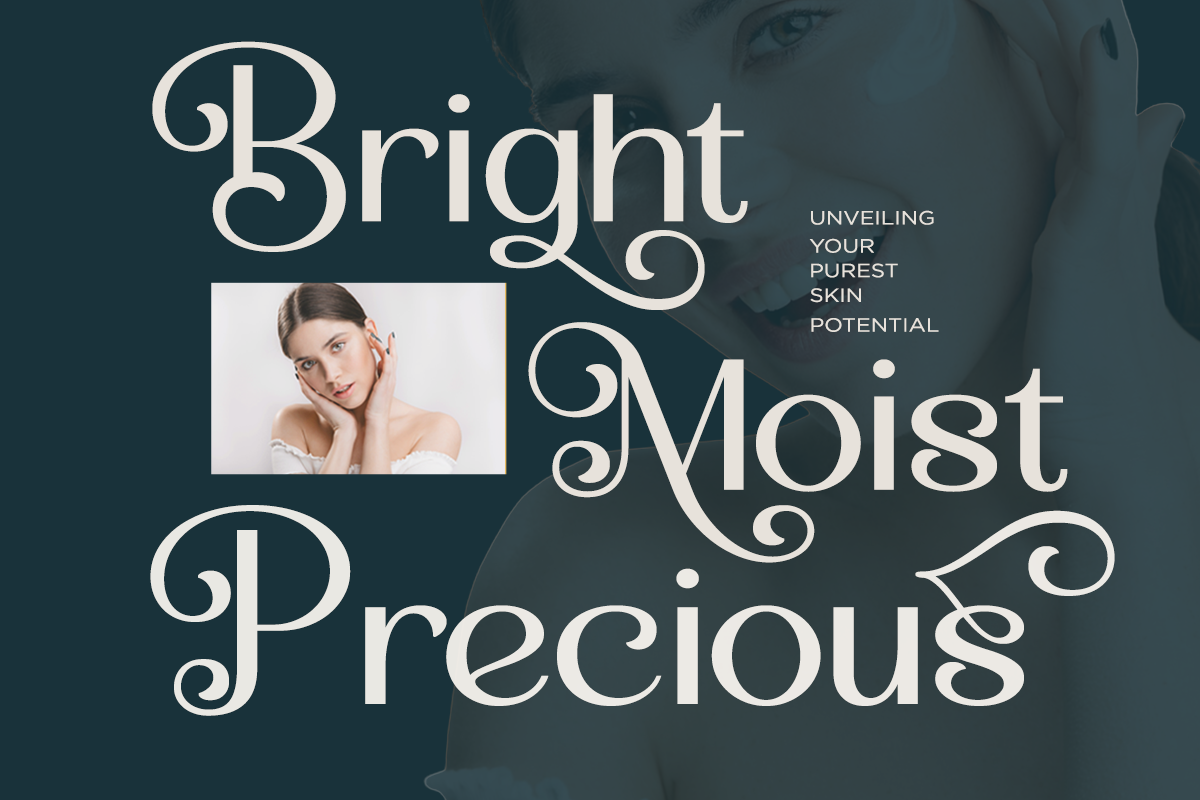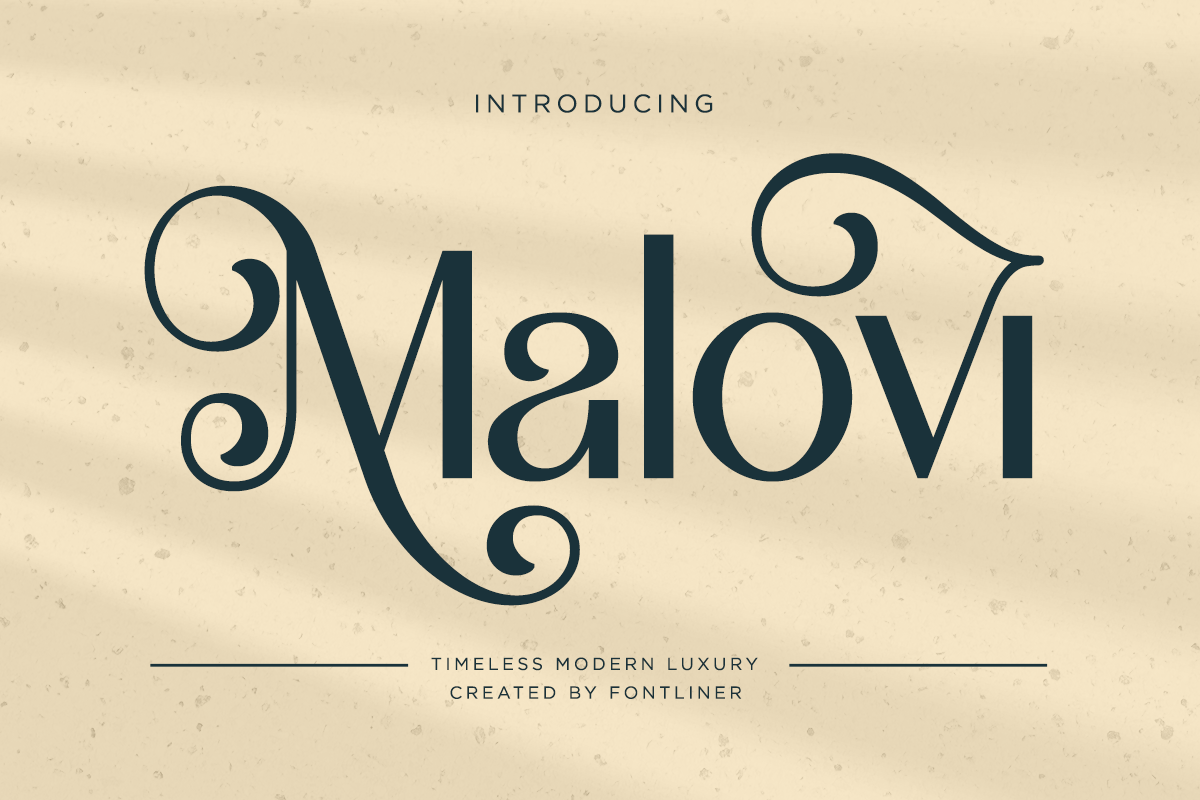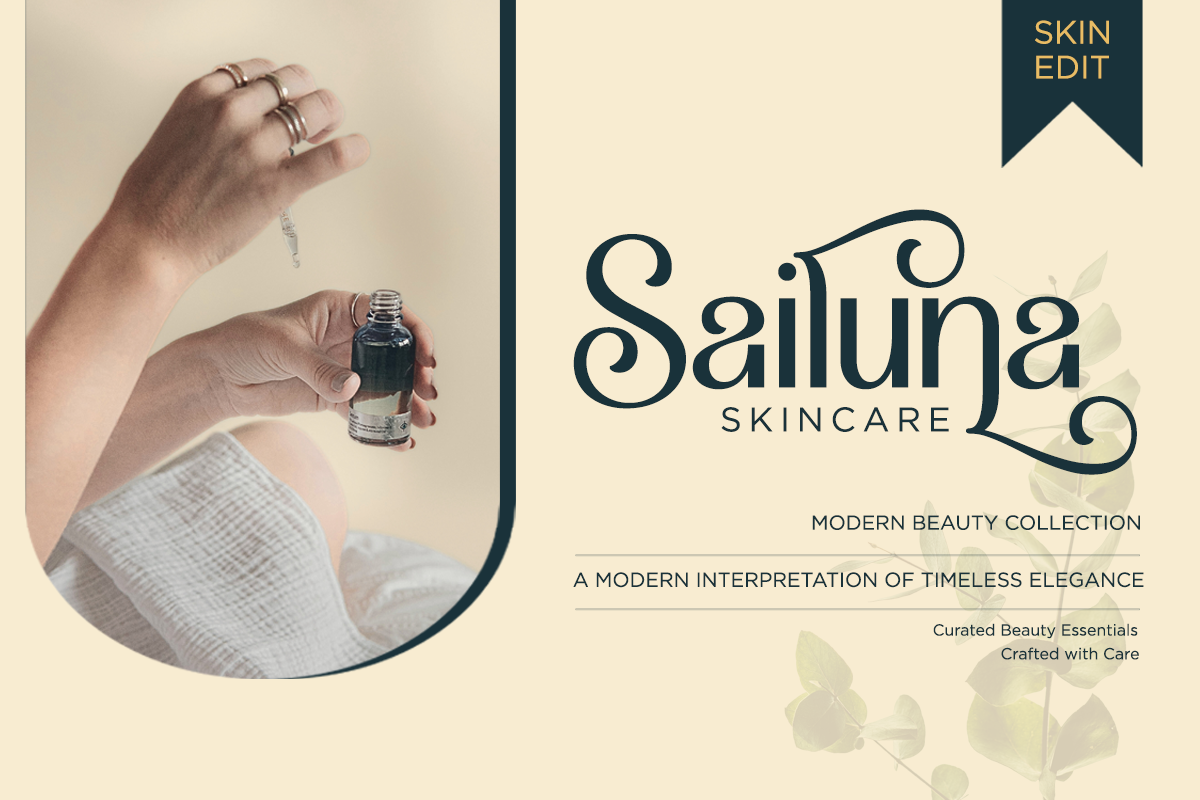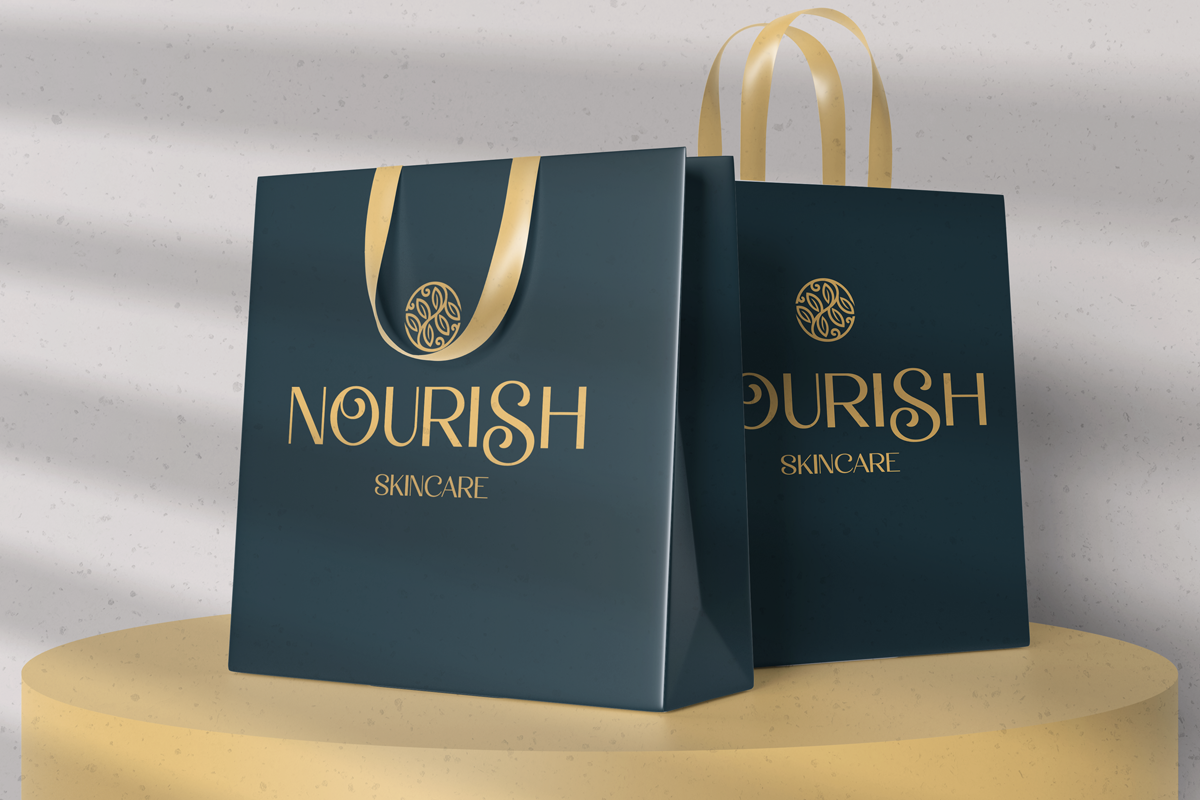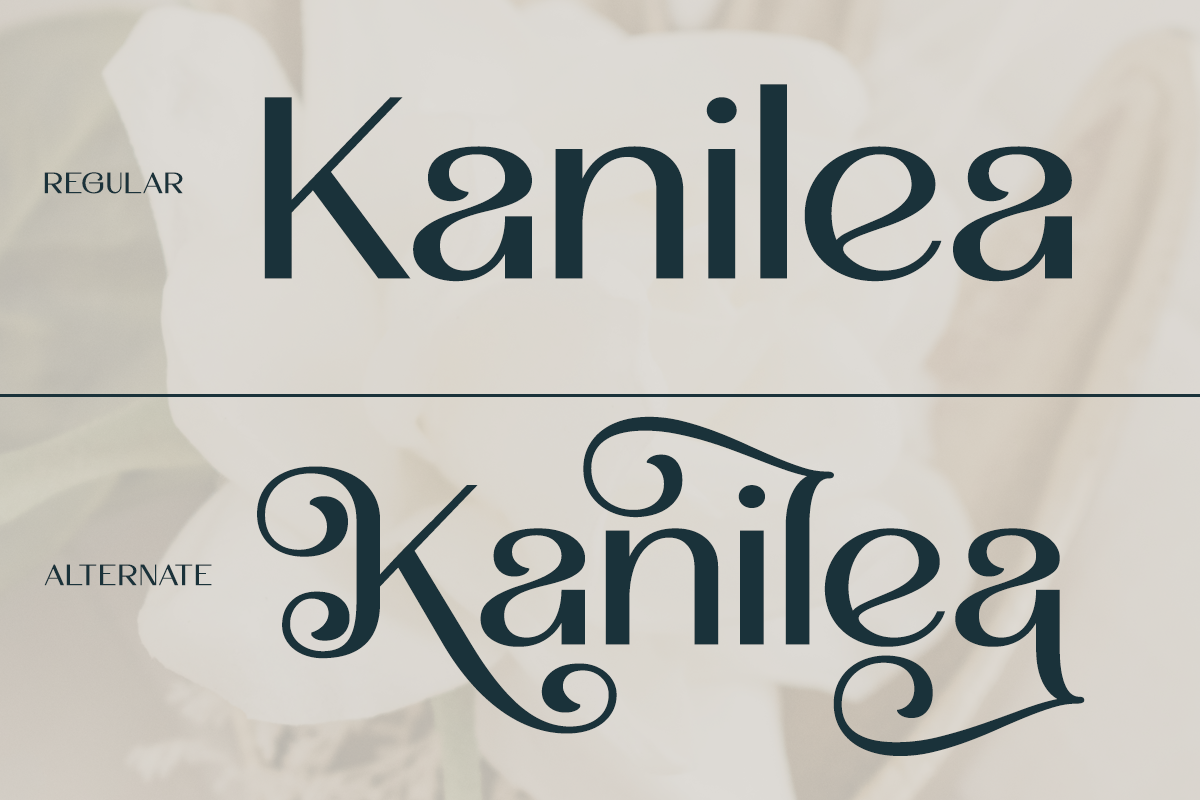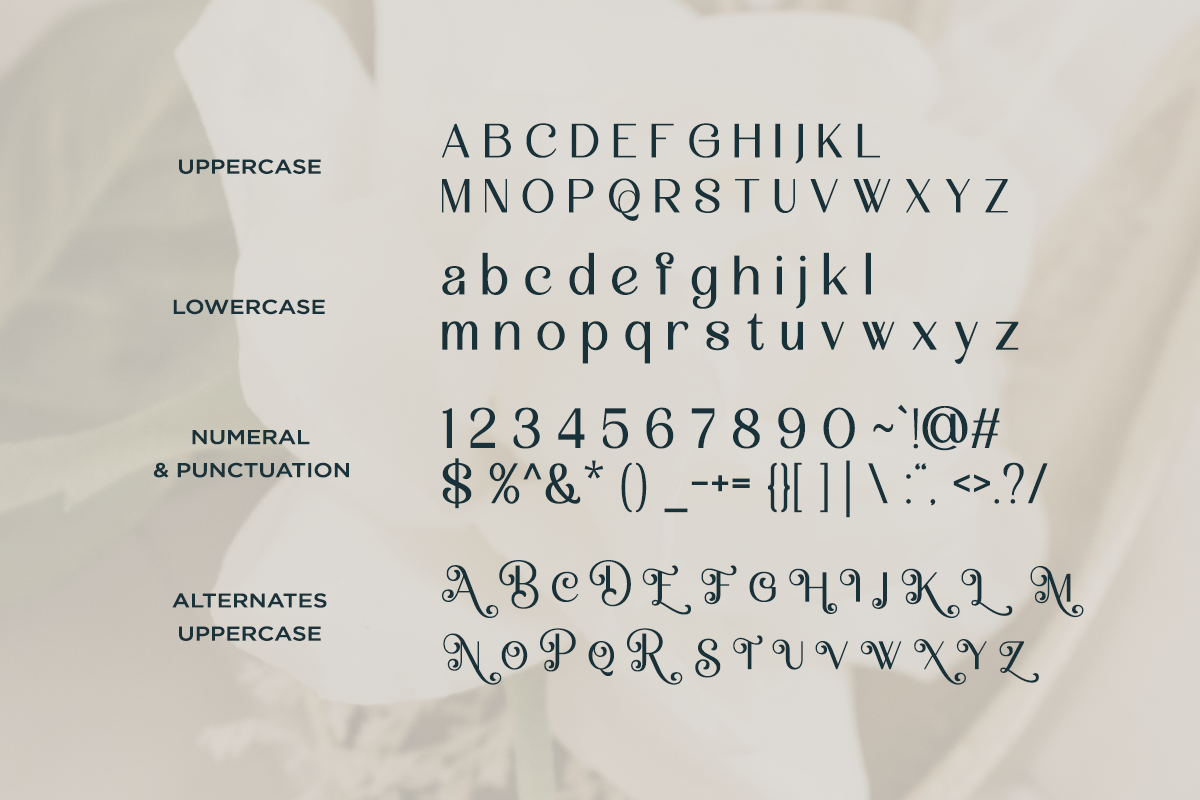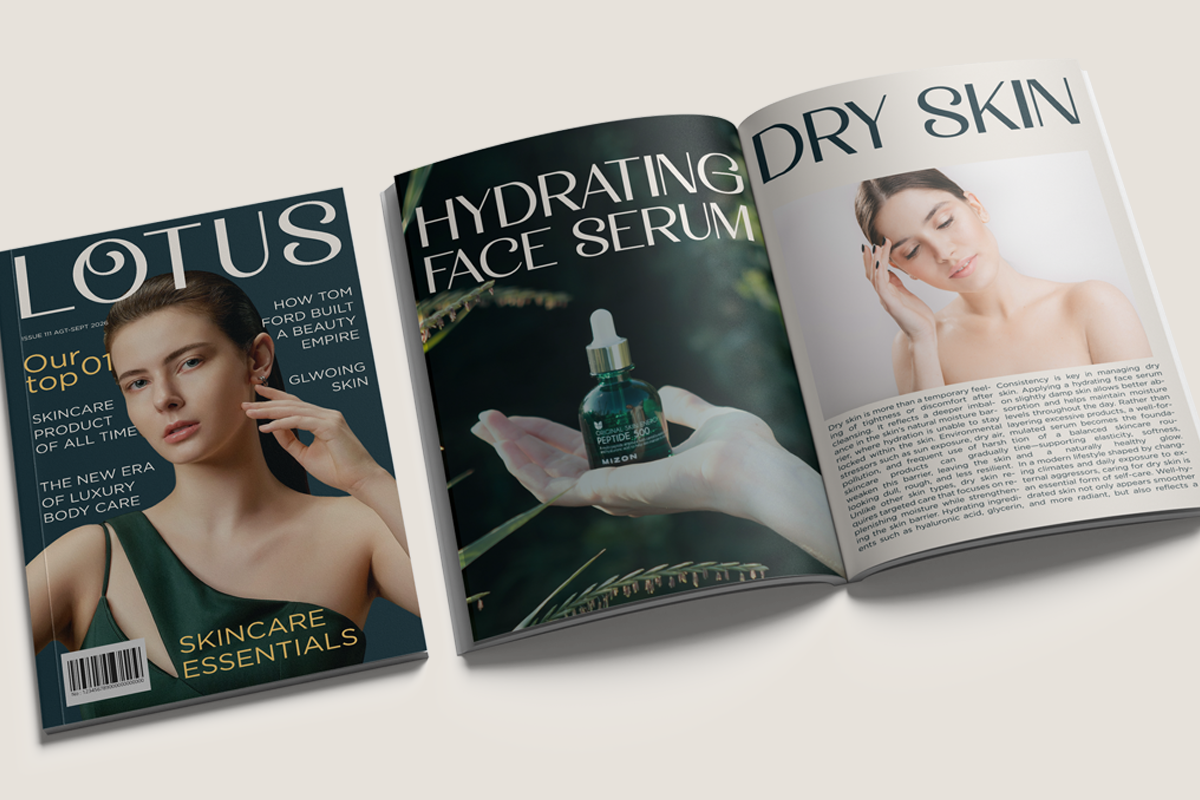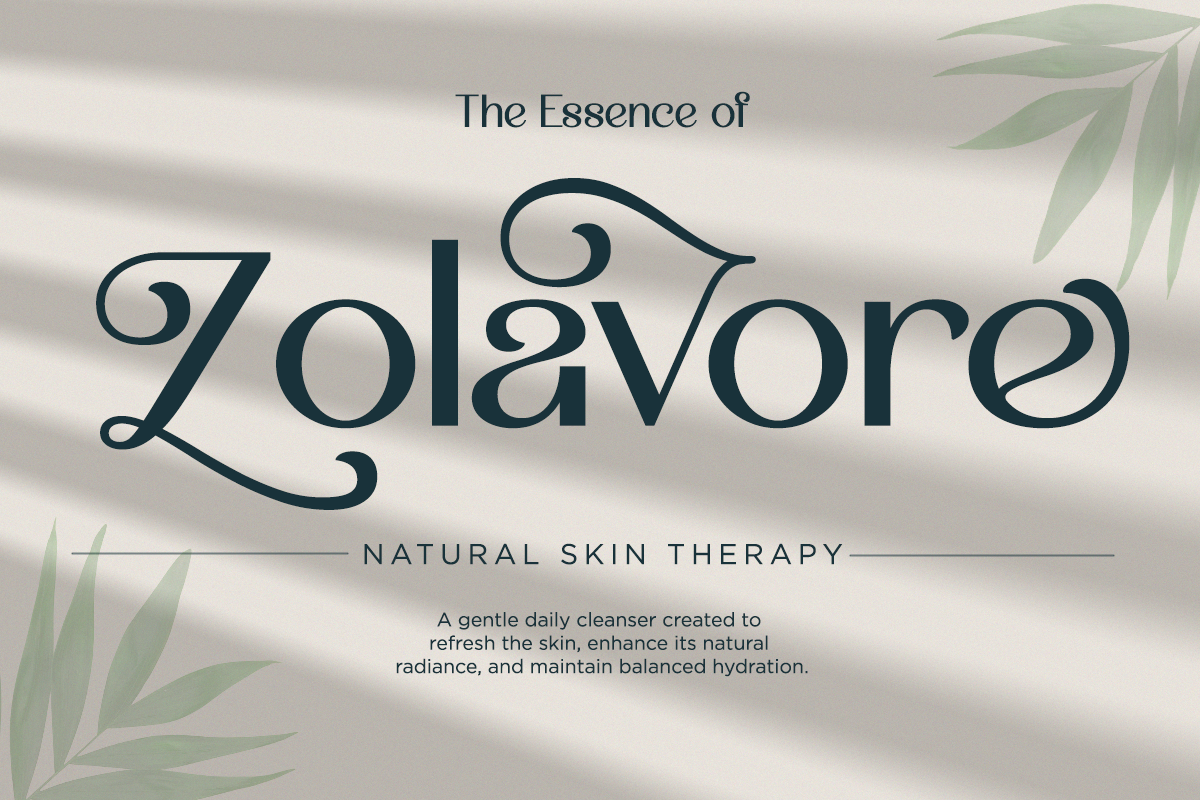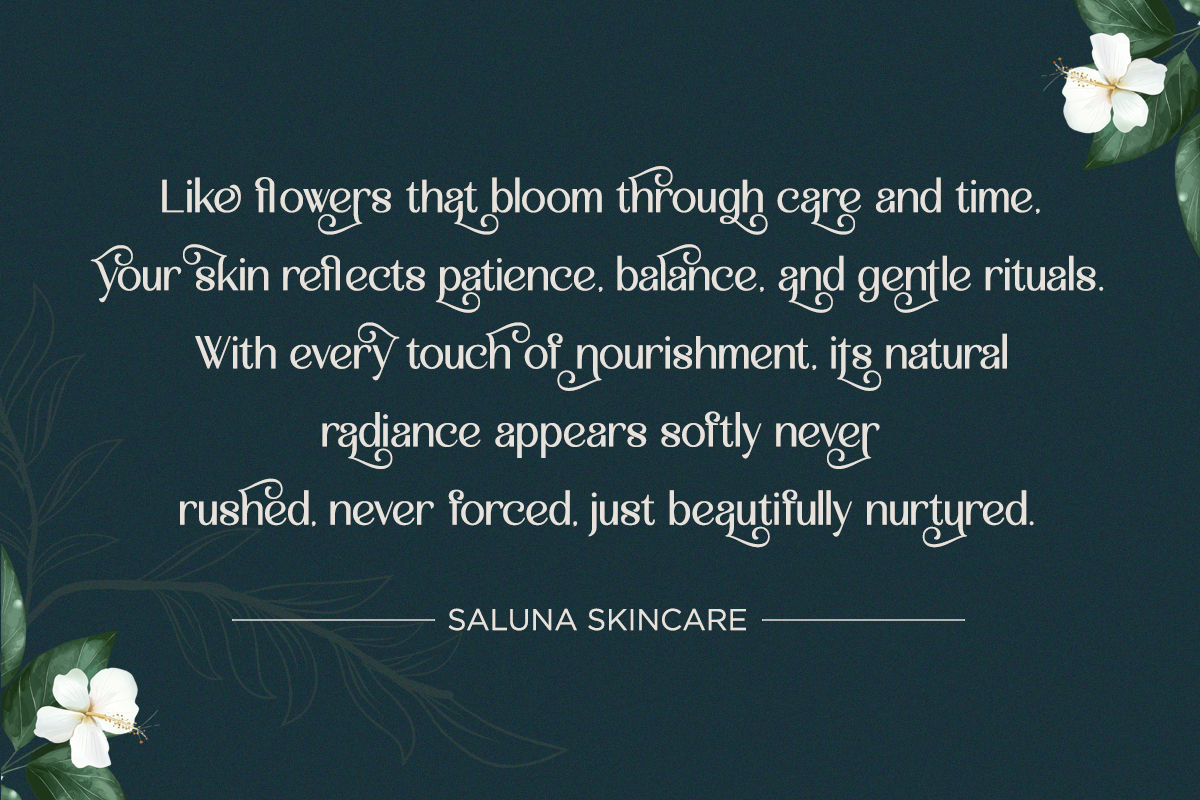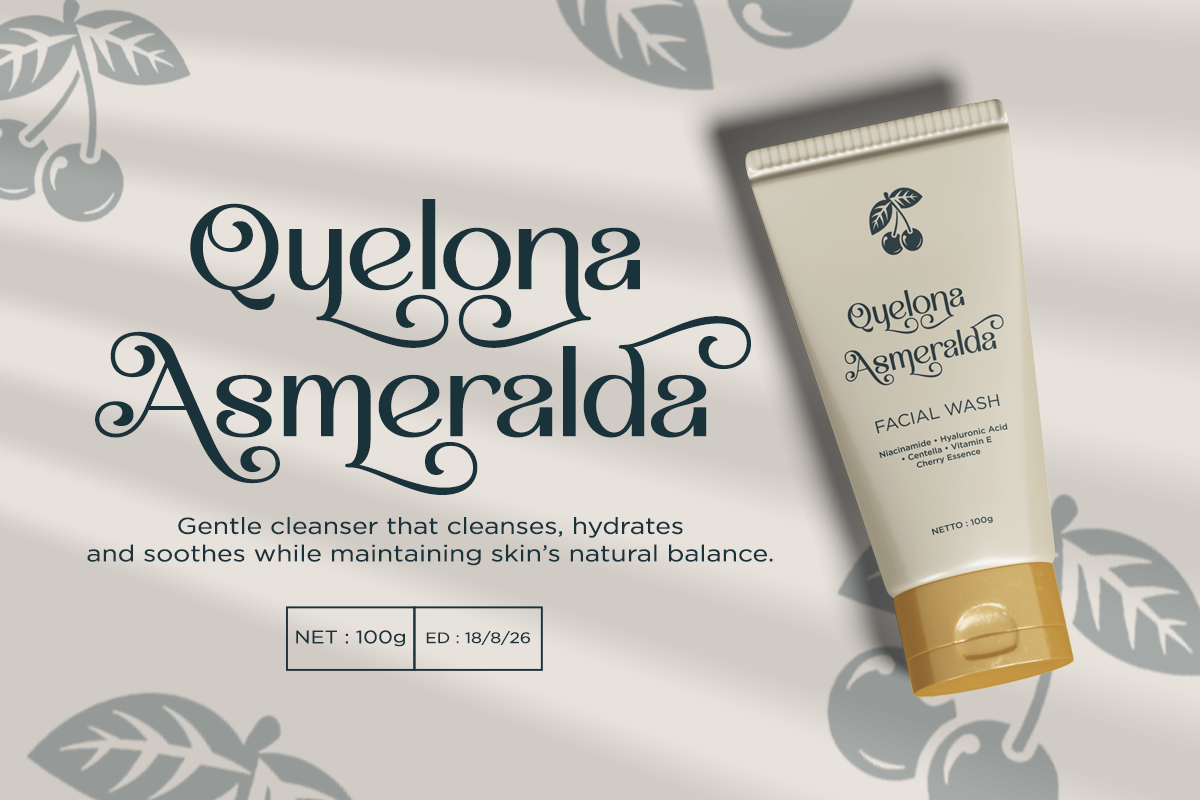
Malovi - Modern Elegant Serif
Malovi is a timeless modern luxury serif designed to bring elegance and refined character into high-end visual projects. Inspired by classic beauty with a contemporary twist, Malovi features graceful curves, decorative swashes, and sophisticated letterforms that instantly elevate any design.
Crafted for designers who work in fashion, branding, and editorial spaces, Malovi offers a perfect balance between decorative style and readability. Its elegant ligatures and stylish details make it ideal for logos, magazines, invitations, beauty branding, and premium marketing materials that demand a luxurious impression.
Whether used for headlines, branding identities, or high-impact display typography, Malovi delivers a confident and exclusive feel. This font is built to help your work stand out in competitive creative markets while maintaining timeless appeal and professional versatility.
- Alternates Set